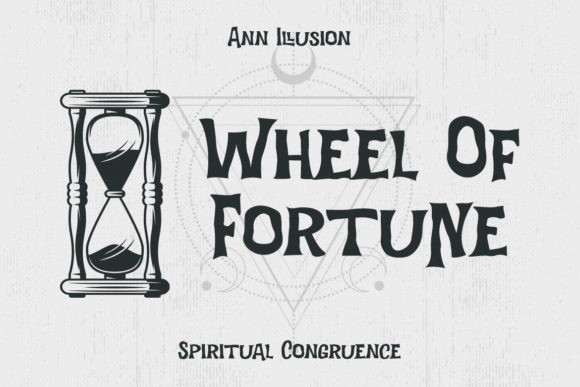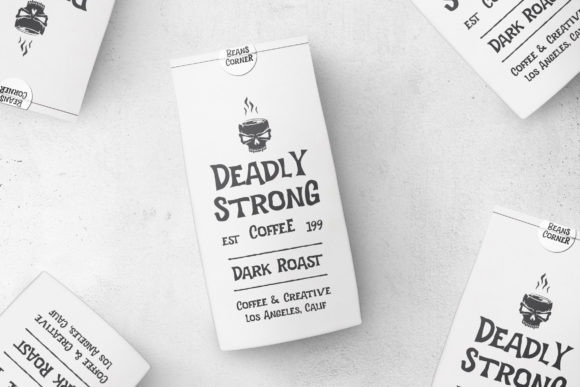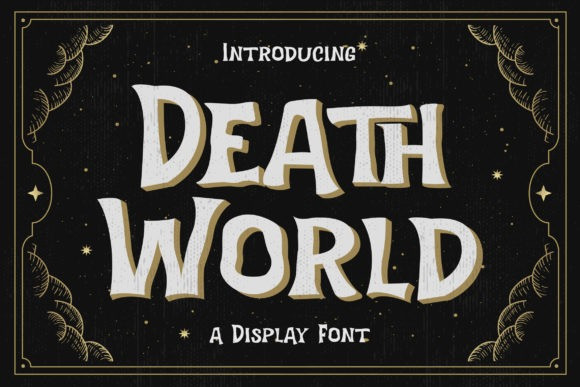
Papaya Pakpaw Display Font
PaPaya Pakpaw is a modern and fresh handwritten font. Incredibly versatile, this font fits a wide pool of designs, elevating them to the highest levels. Add this font to your favorite creative ideas and notice how it makes them come alive!